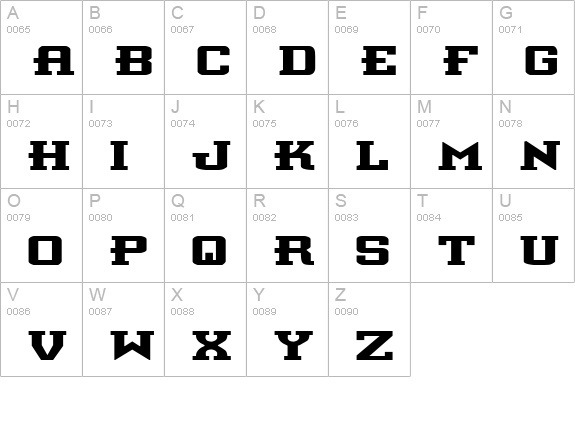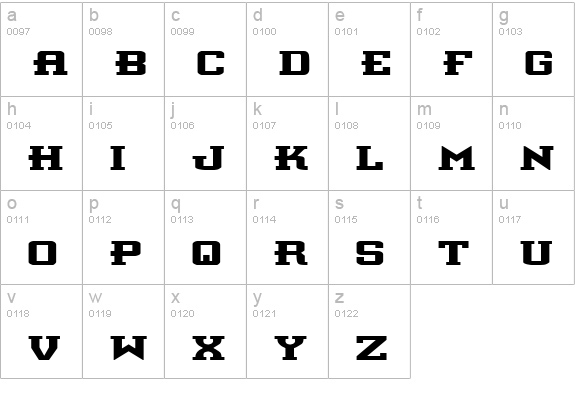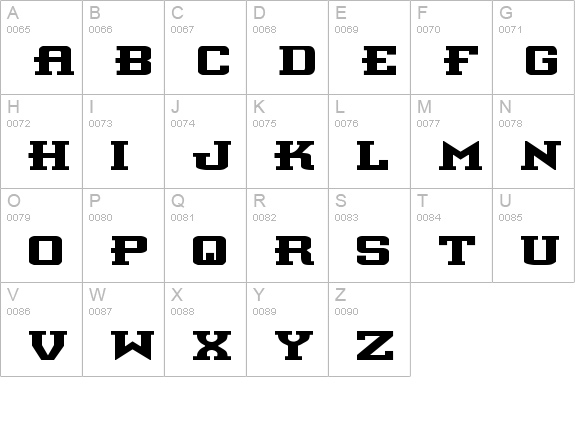
Interceptor Expanded Font Details
Interceptor Expanded is a distinctive, extended-width variant in the Interceptor typeface family \xE2\x80\x94 well suited to design and typography projects.
Interceptor Expanded is a modern and sleek font that is perfect for making a bold statement in your design projects. With its sharp lines and contemporary feel, this typeface exudes confidence and sophistication. The expanded version of Interceptor adds an extra level of impact, making it ideal for headlines, logos, and other prominent text elements. What makes Interceptor Expanded even more appealing is that it is available for free download at FontsMarket.com. This means you can enhance your designs with this unique and eye-catching font without any cost. Don't miss out on the opportunity to elevate your projects with Interceptor Expanded – download it today and let your creativity shine!